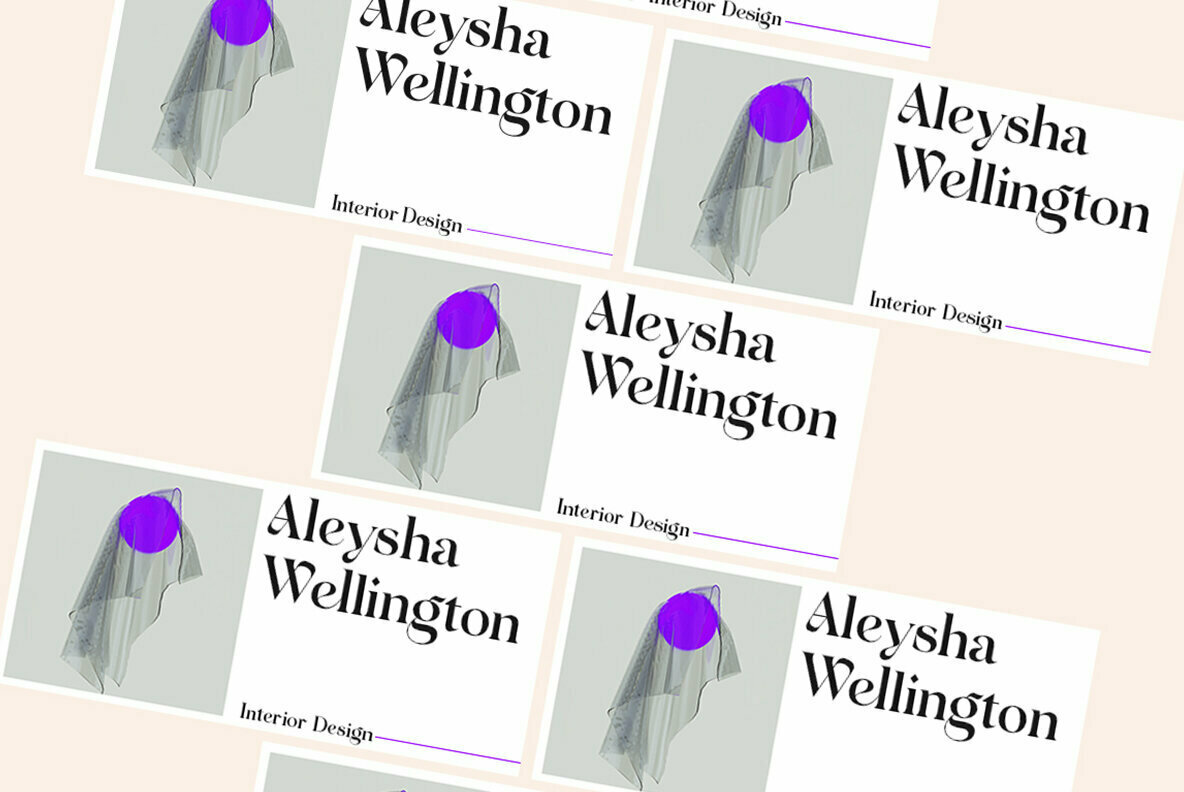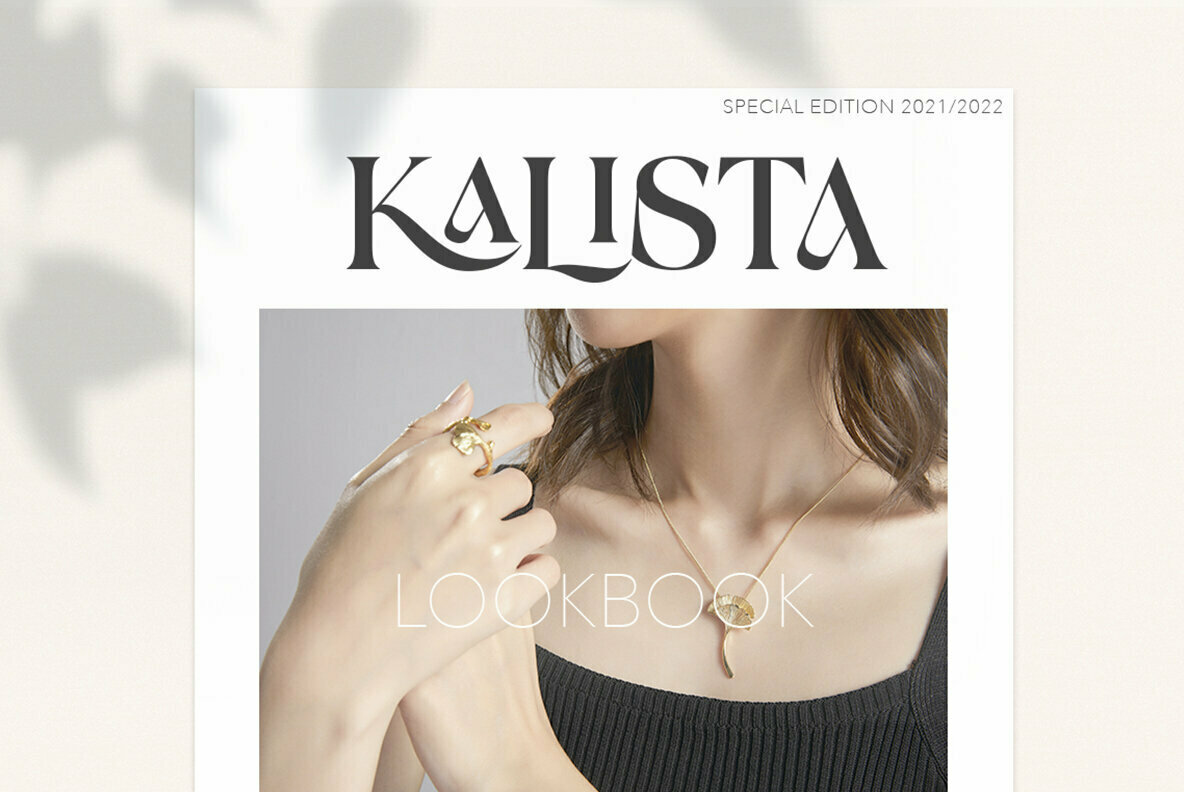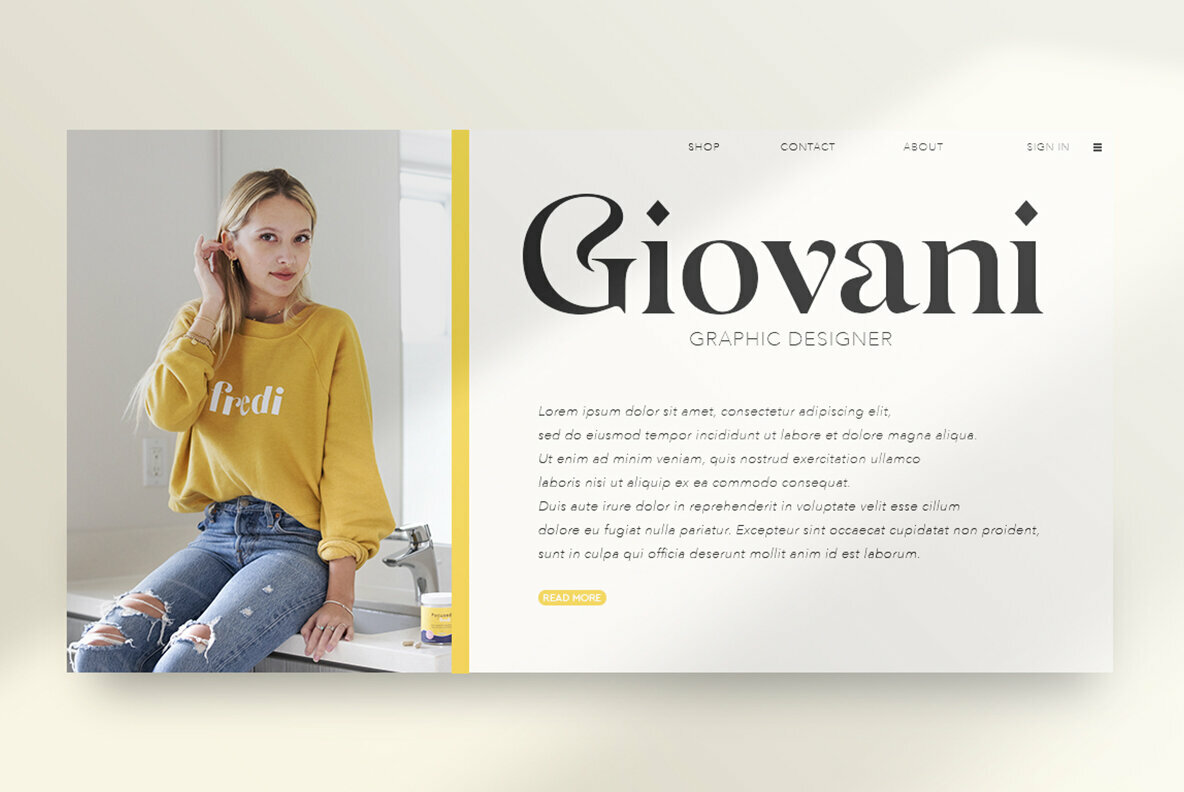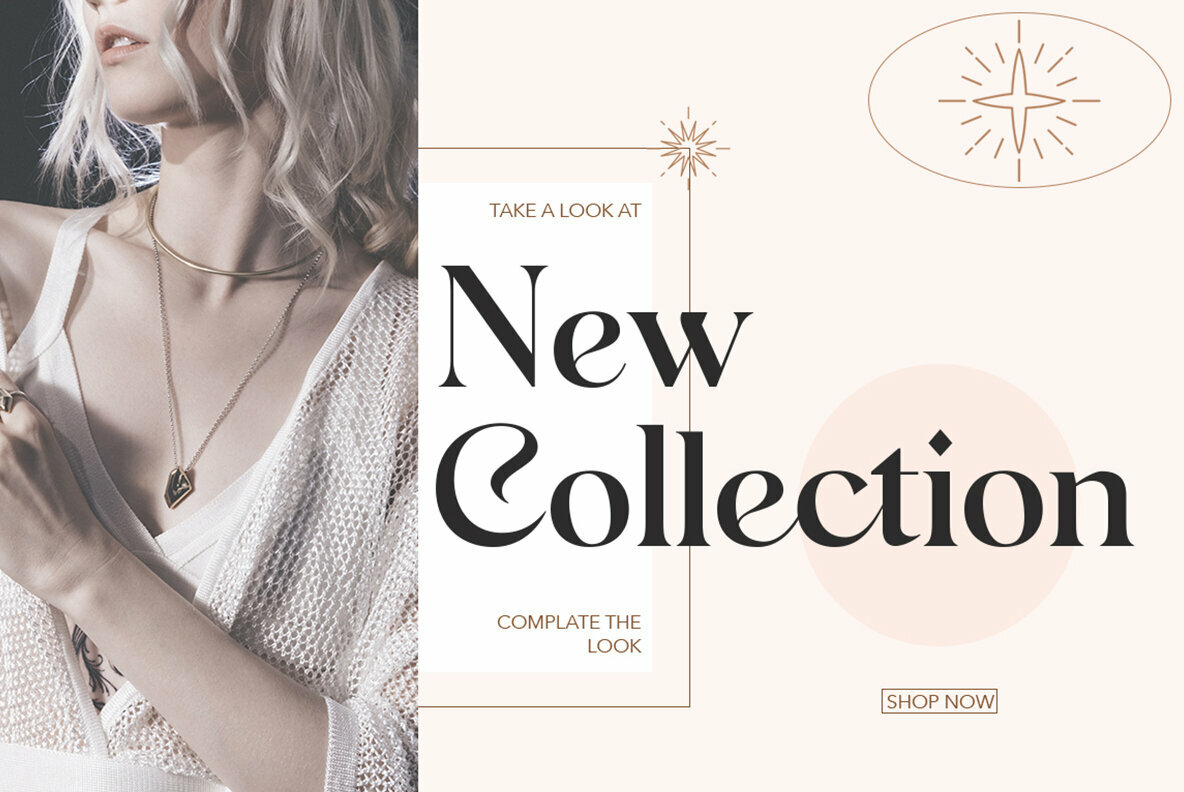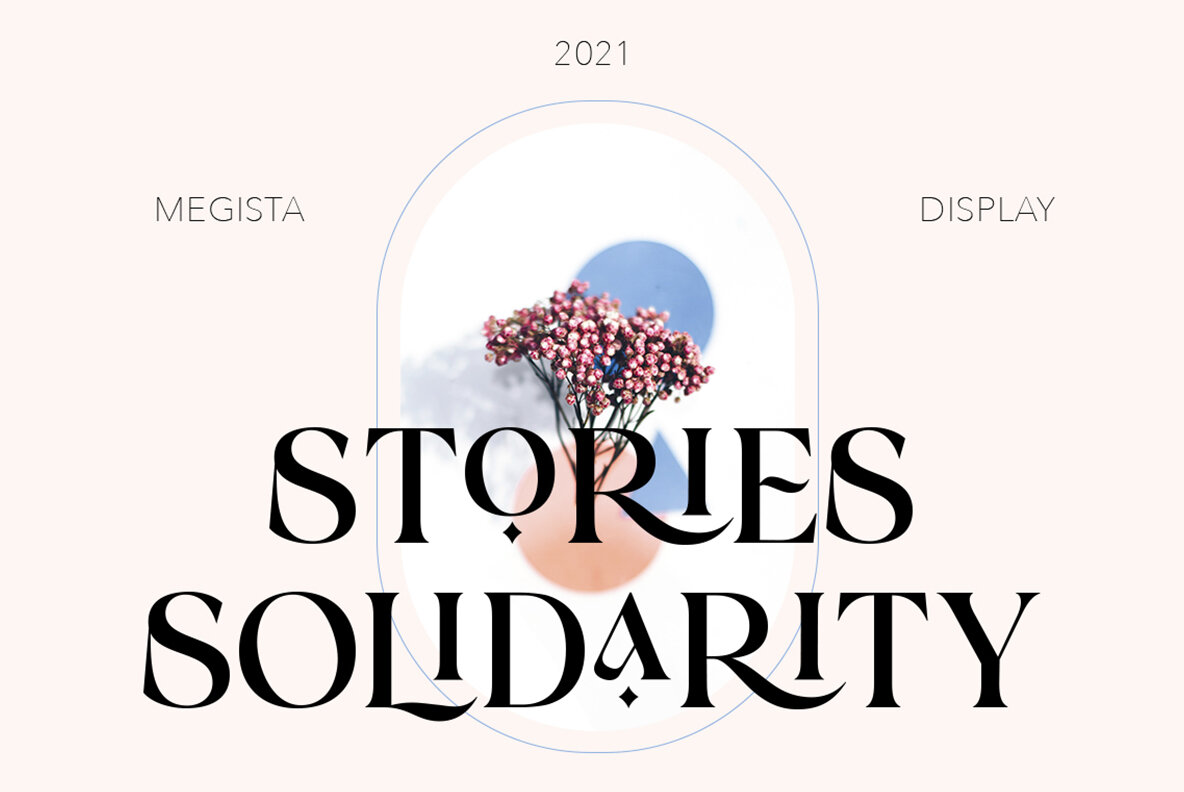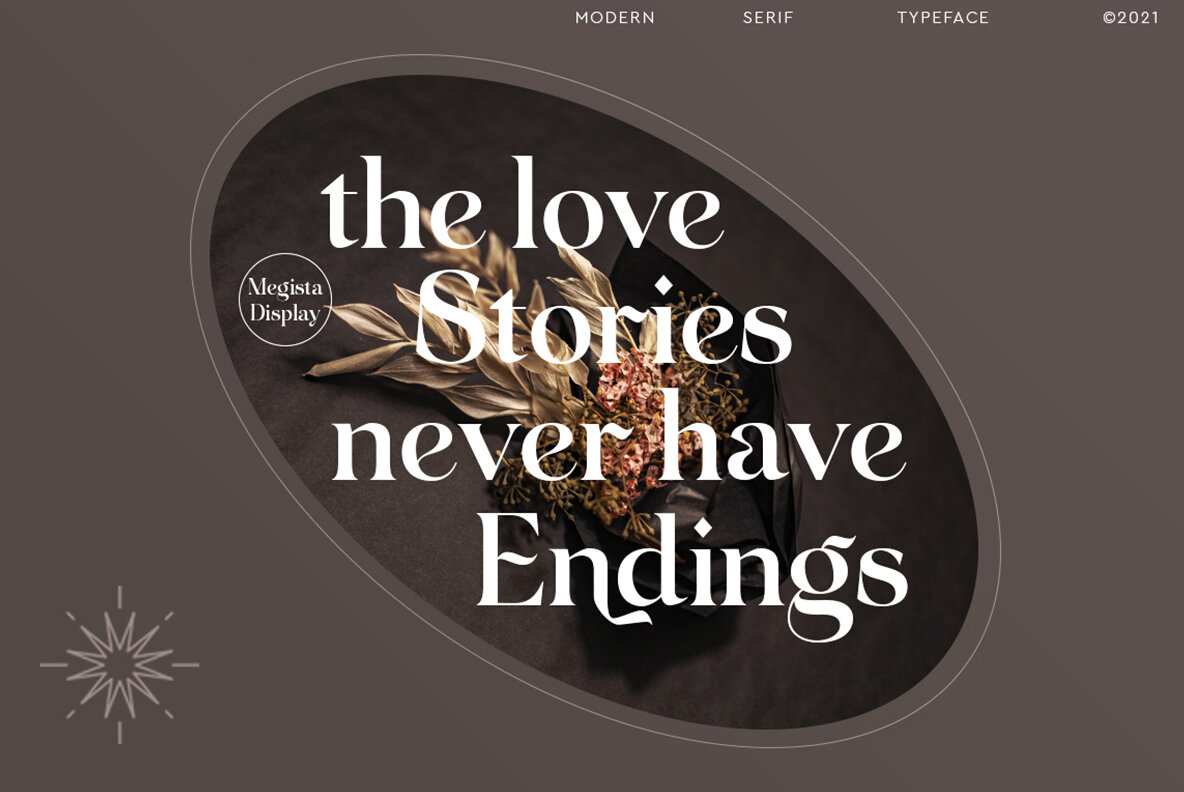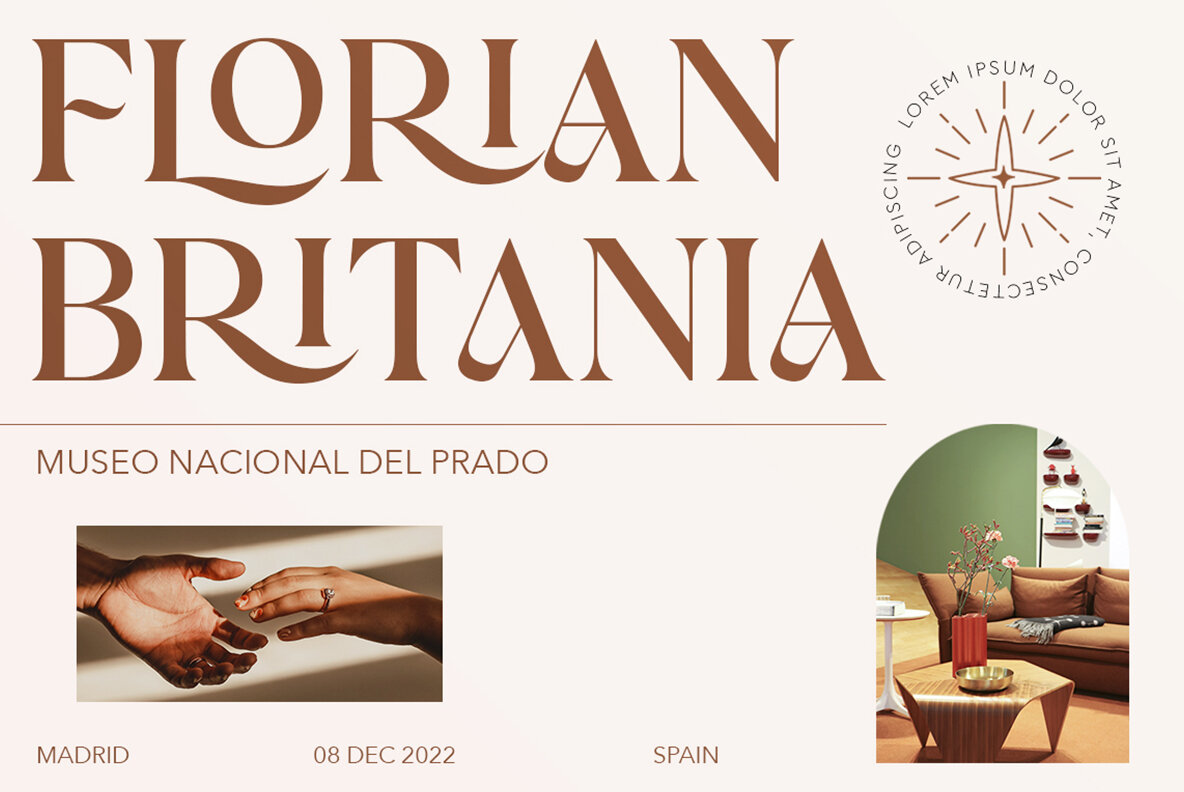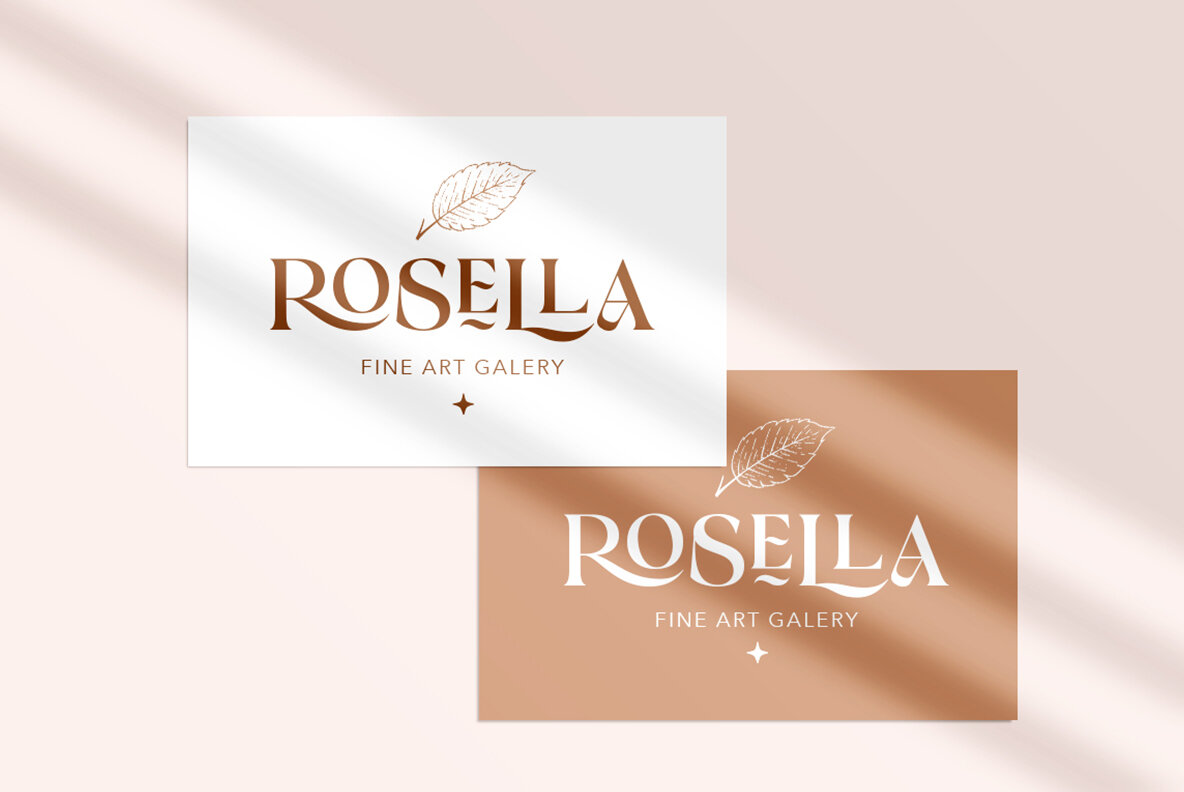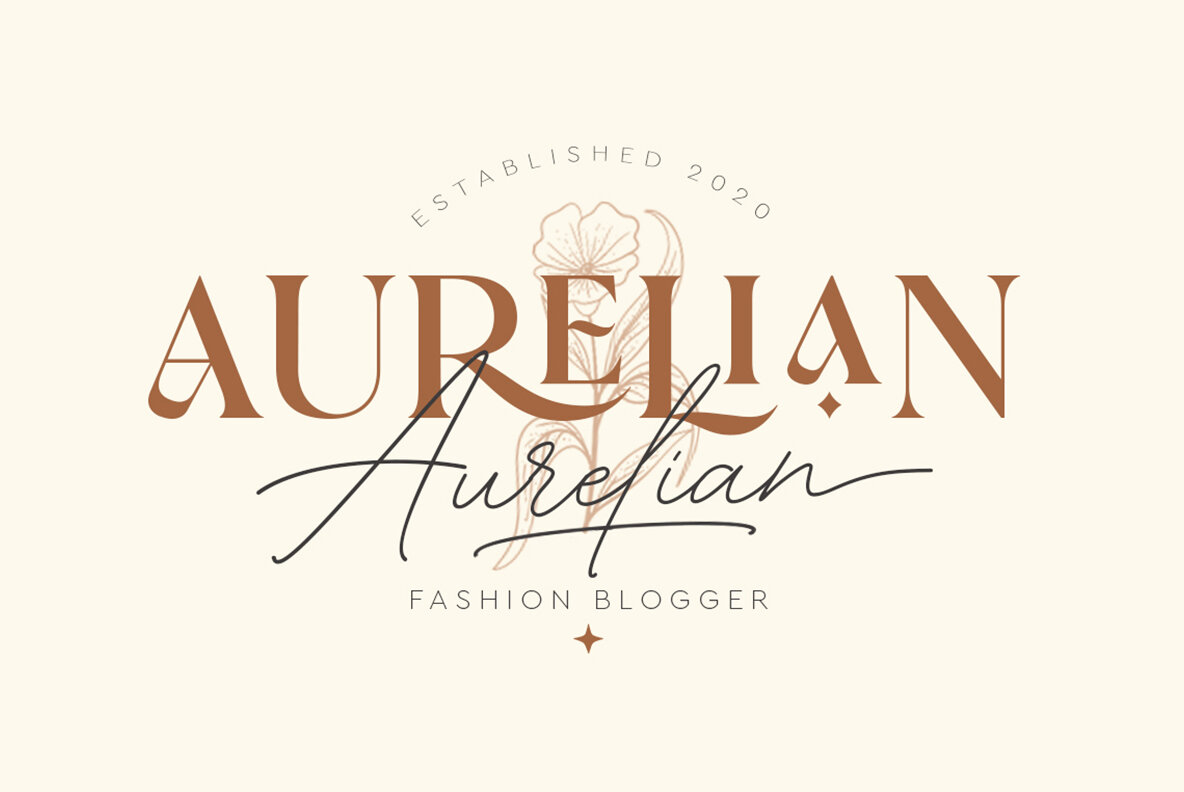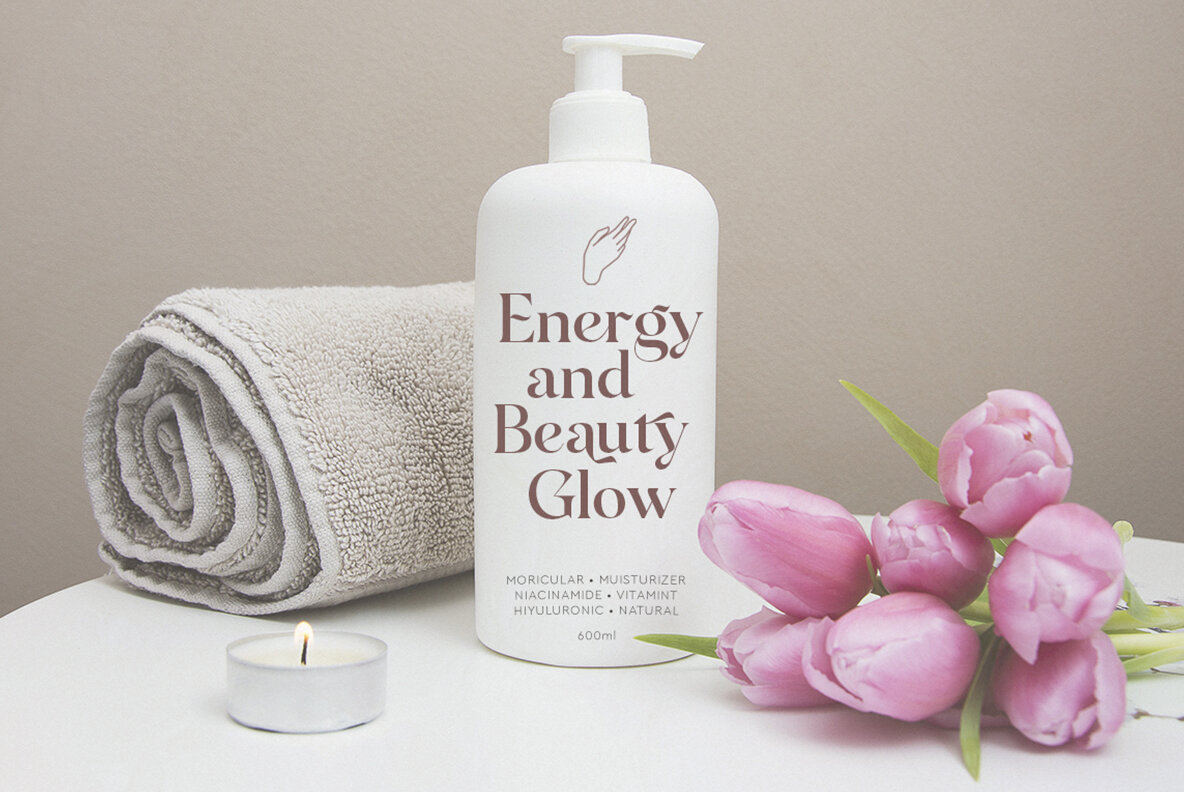
Megista Display Font
Megista Display emerges as a contemporary serif font, distinguished by its singular ligature style and high contrast light composition. This font is ideally suited for a range of applications such as feminine logos, fashion headlines, and editorial designs. Its versatility extends to branding projects, clothing labels, packaging, magazine headers, and even advertising and T-shirt designs. Includes a full set of:Megista Display: A Modern Serif With Unique Ligatures